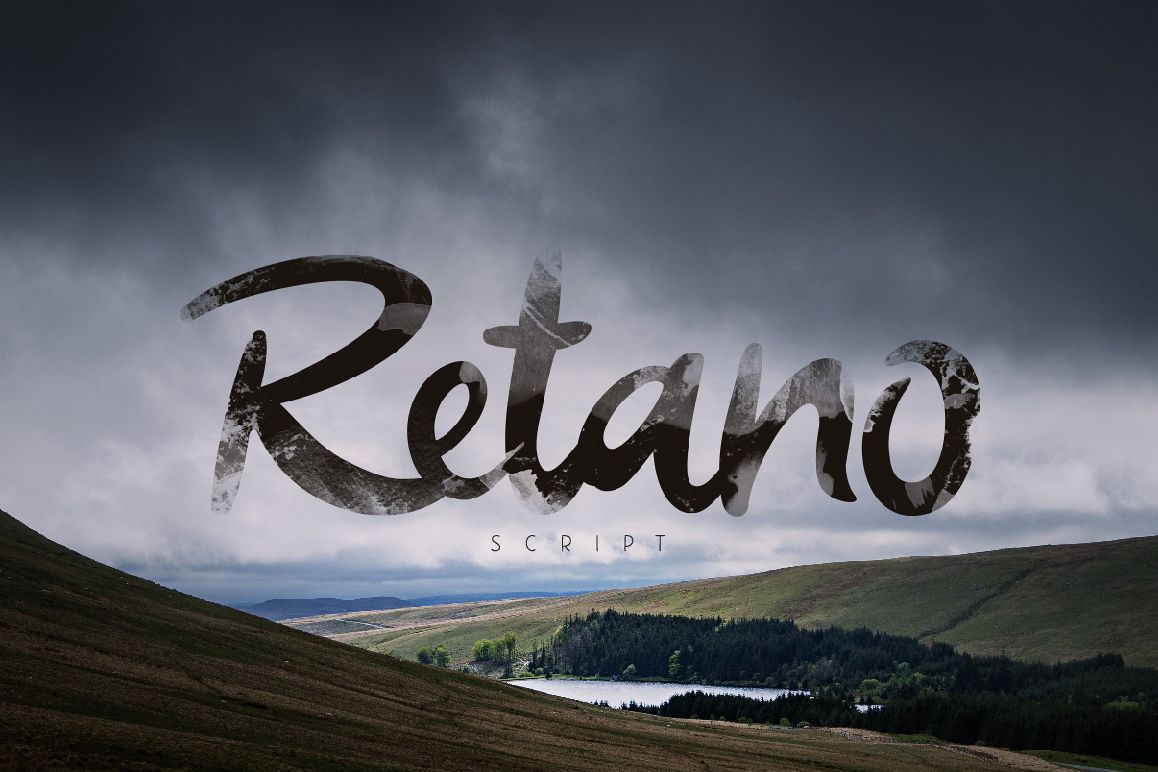
Retano Script
Retano contains a full set of lower & uppercase letters, large range of punctuation, numerals and international support. Perfect for quotes, posters, branding projects, product packaging, t-shirt, greeting cards and etc.